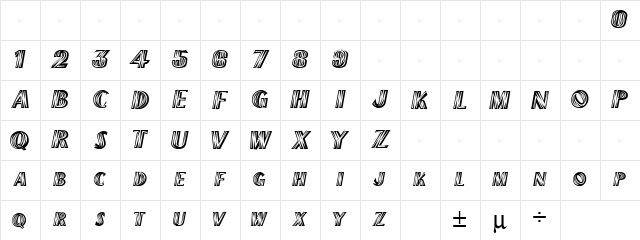
Chili Regular
Design Context for Chili
Chili is a composed and adaptable typeface that performs quietly and consistently across a wide range of design contexts.